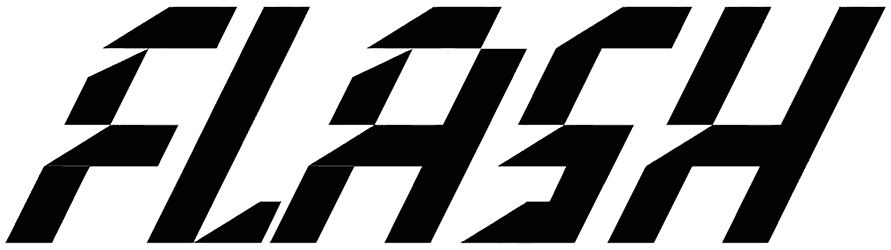
Flash Font
The first and most important step in designing graphic content that easily impresses the audience and convinces them to follow an editorial project is choosing a suitable and cohesive font; in this way, a magical racing font such as Flash would be really practical.
This all-caps masterpiece can reinforce a vibe of dynamic, speedy, tenderness, or modernity in every artwork, including magazines, web pages, applications, video game brochures, or logos.